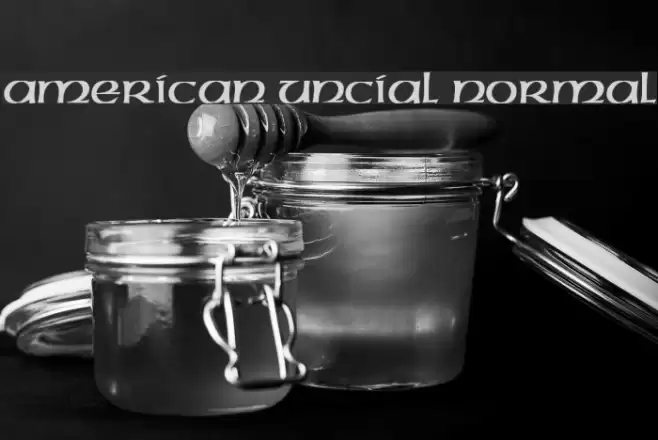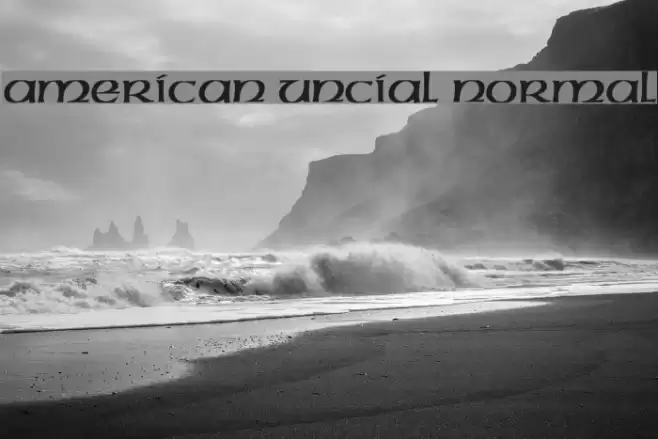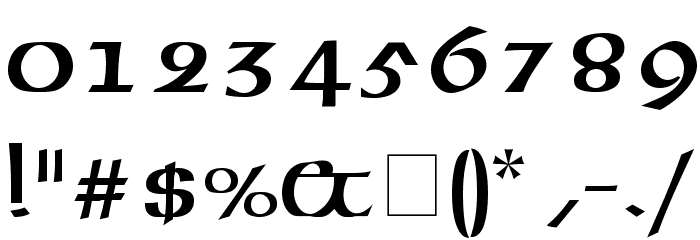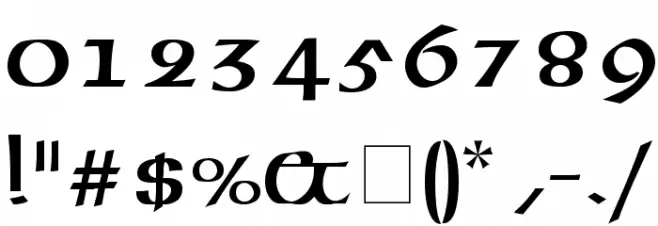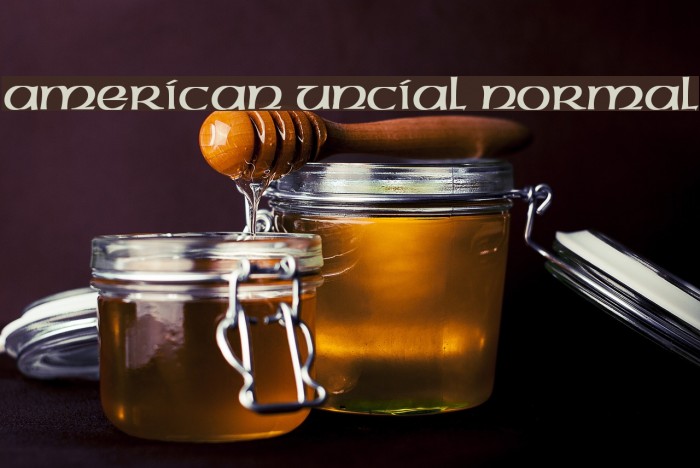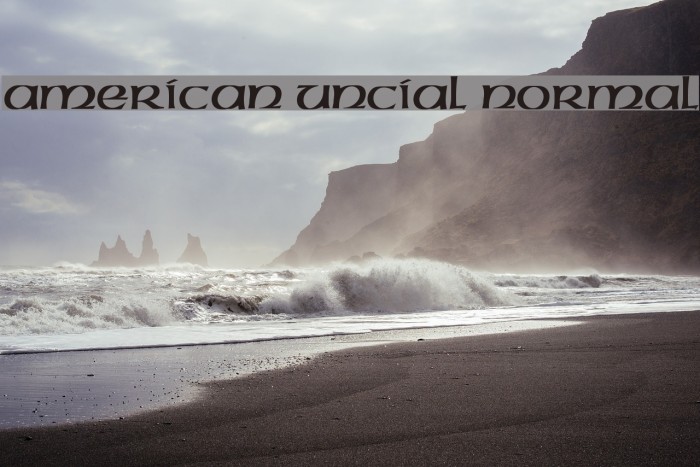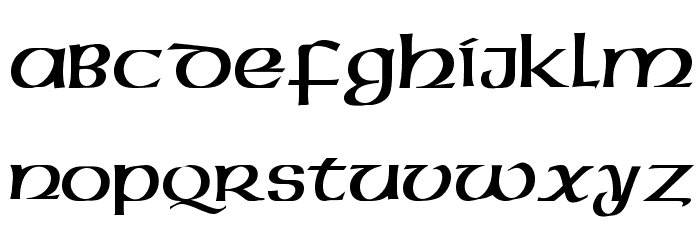
American Uncial normal Font
American Uncial normal Description
This font features a distinctive, calligraphic style with a historical flair, reminiscent of medieval script. The characters are bold and rounded, with a unique blend of sharp and smooth curves that give it an elegant yet robust appearance. The uppercase letters are particularly striking, with a strong presence that commands attention. The lowercase letters maintain the same stylistic elements, ensuring consistency throughout the text. Numbers and special characters are designed to match the overall aesthetic, making this font versatile for various uses.
A bold, calligraphic font with a medieval script influence from Uncategorized fonts.
- Proposed Projects: Ideal for projects that require a historical or artistic touch, such as invitations, certificates, or book covers.
- Overall Style: Vintage
- Use Case: Headlines, Logos, Decorative text